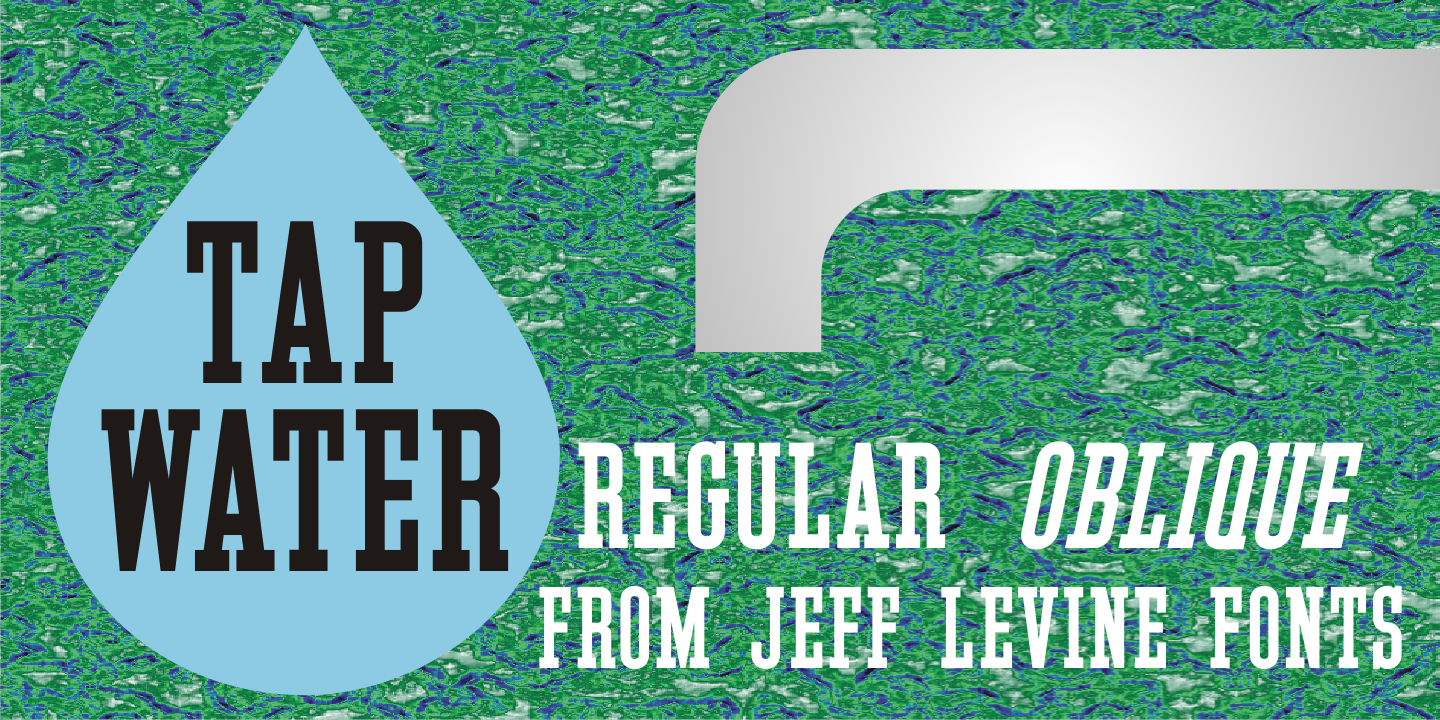
Tap Water JNL Font Free Download is a vintage-inspired display typeface that reflects the charm of old utility signage and retro product packaging. Please note that you must purchase this font for commercial use. It is available for free download for personal and testing purposes only.
You can use Tap Water JNL Font in label designs, retro advertisements, poster titles, signage recreations, diner menus, and any design that calls for a nostalgic, industrial, or mid-century aesthetic. It’s great for creating a throwback vibe with crisp legibility.
What makes Tap Water JNL so exciting is its honest and unpretentious design — it feels like something you'd find stamped on an old soda crate or painted on the side of a vintage appliance. Its simplicity is its strength, delivering clarity with just the right touch of period style.
The Tap Water JNL Font family includes variations such as Tap Water JNL Regular, Tap Water JNL Oblique, and Tap Water JNL Bold, giving you flexibility in maintaining the tone while experimenting with emphasis and layering.